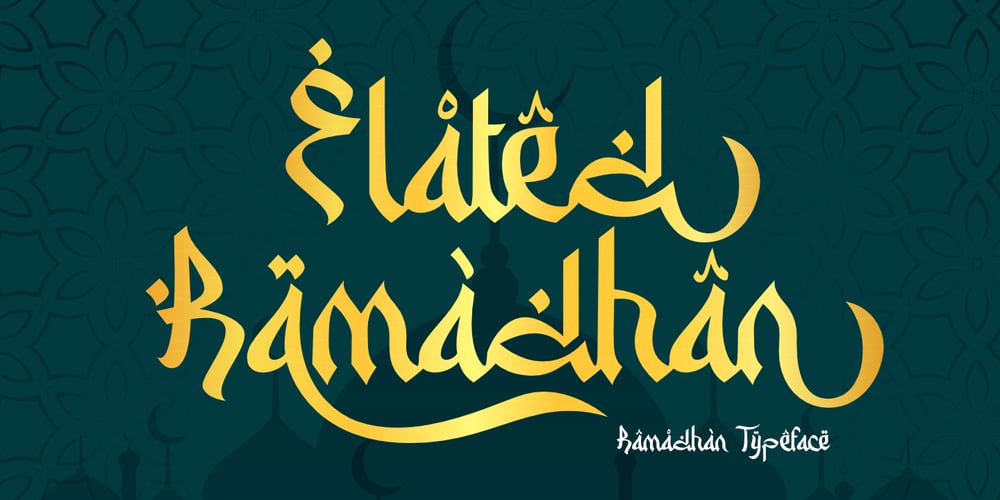
Elated Ramadhan Font Family was designed by Saiful Anwar and published by Sealoung. Elated Ramadhan contains 1 styles and family package options. Introducing the 🕌 Elated Ramadhan Typeface 🕌 by Sealoung.”Elated Ramadhan” is an Arabic font that features a elegant swashes. It is a highly adaptable font suitable for a wide range of design projects. This typeface is specifically crafted for users who need a font capable of handling various writing systems and special characters. It offers support for multiple languages.The Elated Ramadhan font includes Private Use Area (PUA) Unicode, ensuring compatibility with various software and applications that support OpenType features. It boasts 325 glyphs, encompassing uppercase and lowercase letters, numerals, and punctuation marks.The font’s distinctive style, multilingual support, PUA Unicode, extensive glyph set, and elegant swashes make it an excellent choice for designers and users seeking a font that is both aesthetically pleasing and functional.To utilize the beautiful swashes, you will need software that supports OpenType features such as Adobe Illustrator CS, Adobe Photoshop CC, Adobe Indesign, and Corel Draw.